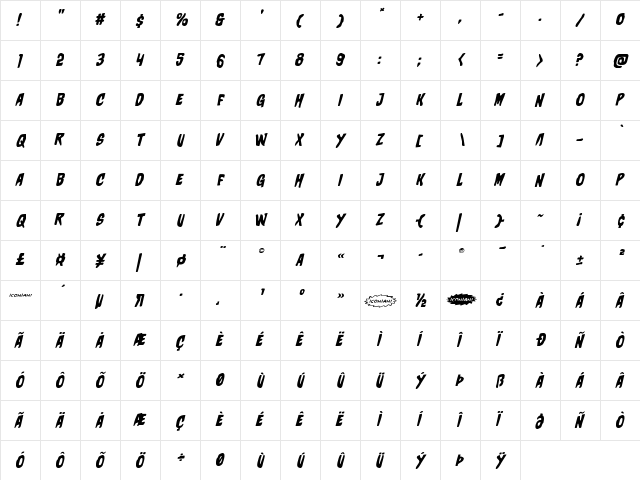
Charmling Expanded Italic Expanded Italic
Design Context for Charmling Expanded Italic Typeface
Charmling Expanded Italic is a composed and adaptable typeface that performs quietly and consistently across a wide range of design contexts. The slanted form adds forward momentum and visual energy.